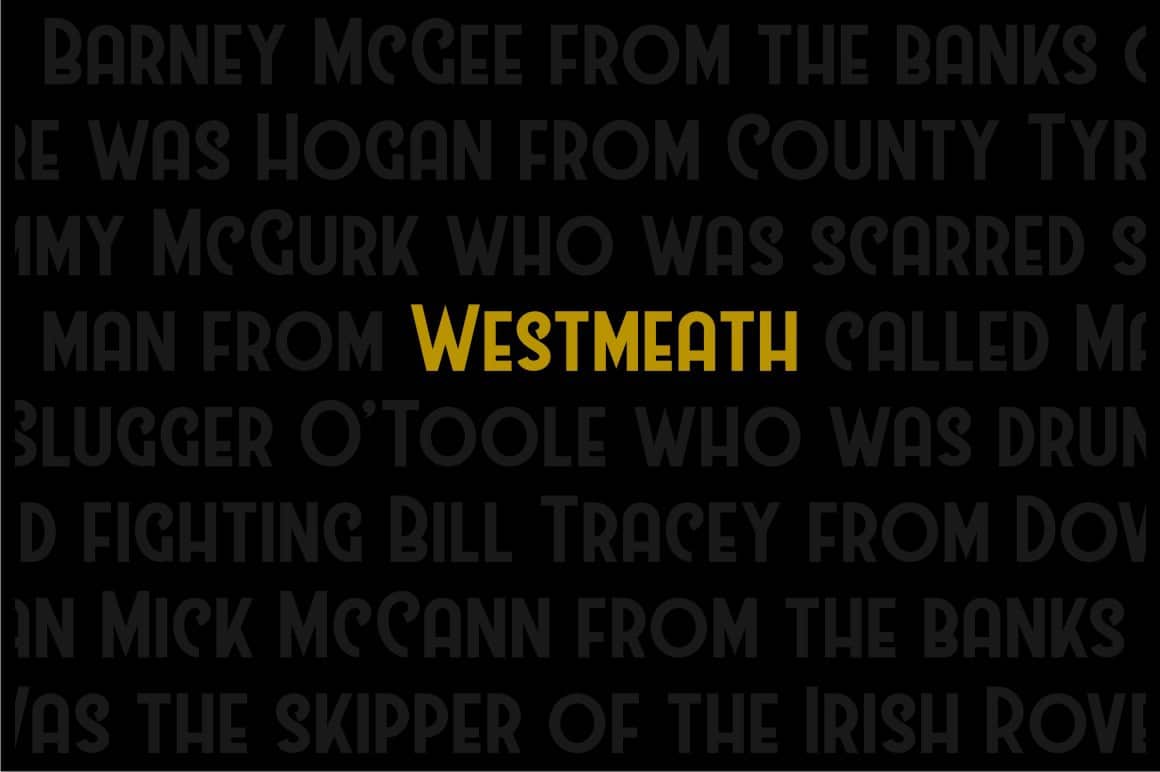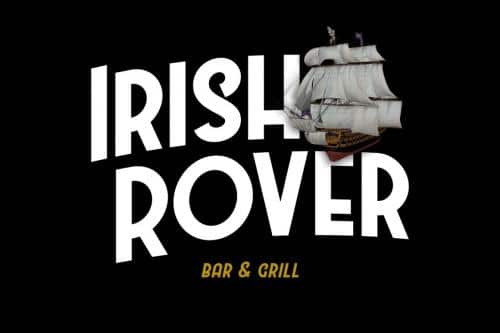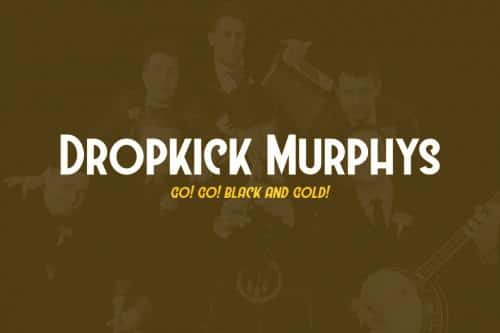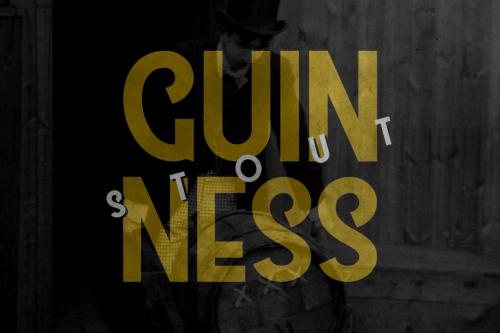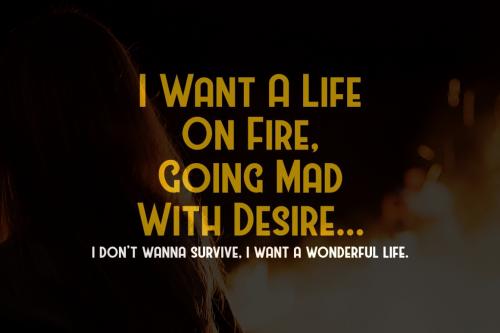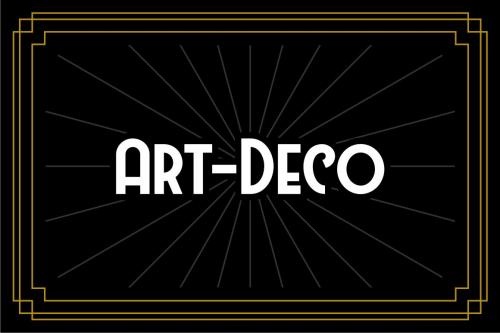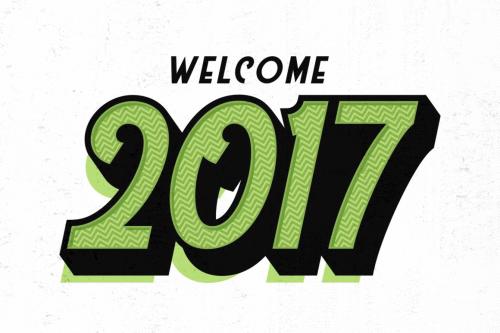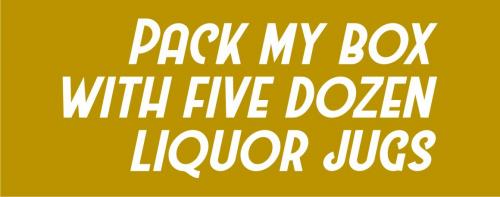
Westmeath font was designed by Twicolabs Design, and he shares completely free. Westmeath Font is a clean sans serif, bit fat (but we believe that this one still looks sexy, though), and art-deco-ish, wait, plus “classic/vintage yet trendy font” of course. Available in two styles: Regular and Italic.